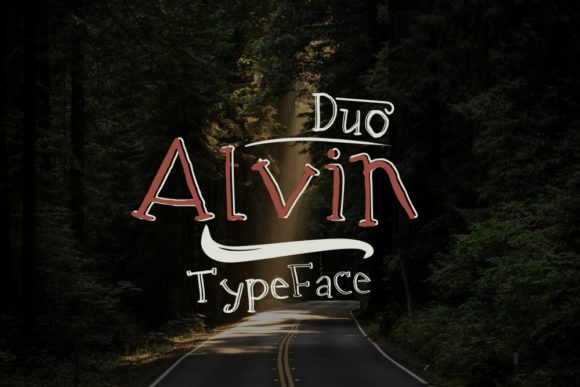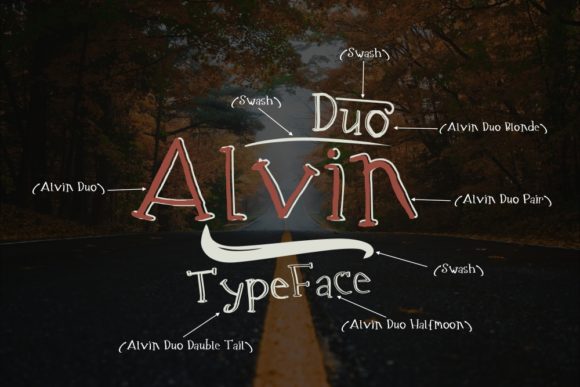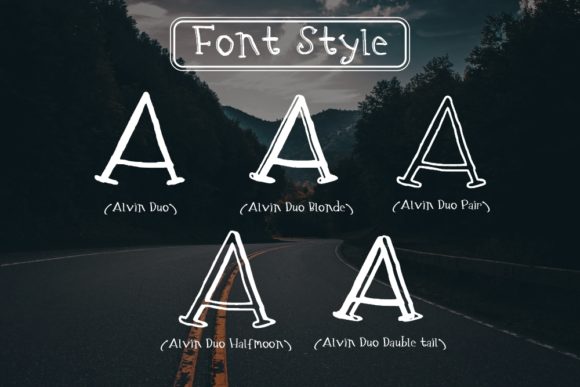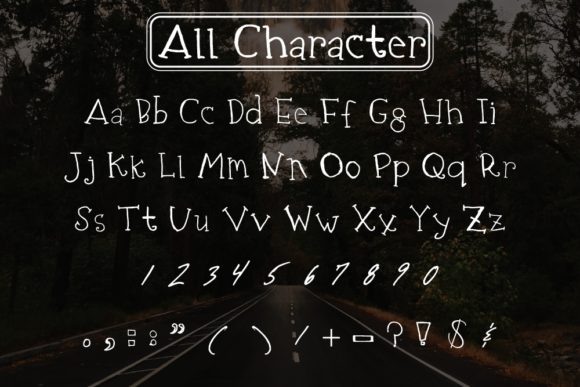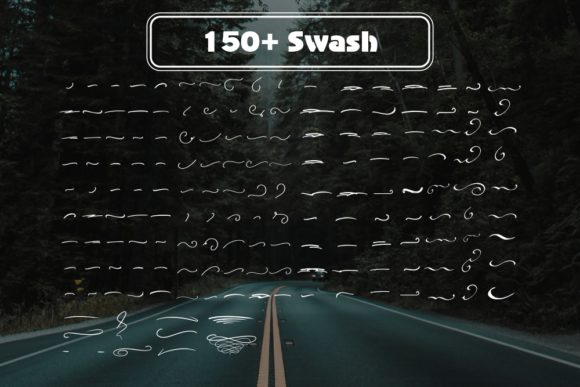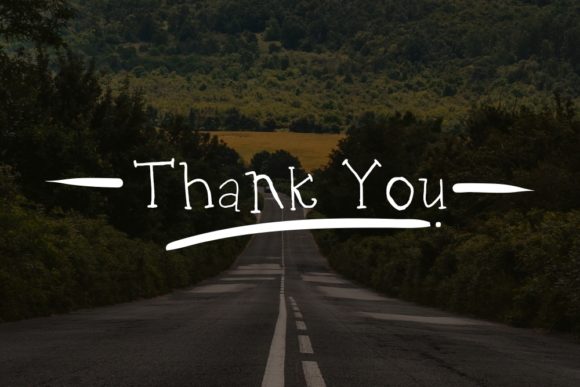
Introducing Alvin Duo Font: The Ultimate Display Font for Creative Minds
Are you a designer, crafter, or DIY enthusiast looking for a font that can add a touch of personality to your projects? Look no further than Alvin Duo Font, a cute and quirky display font that’s perfect for a wide range of designs. With its natural and unique style, Alvin Duo is incredibly versatile and can be used in various creative projects, from crafting and scrapbooking to branding and advertising.
The Unique Charm of Alvin Duo Font
Alvin Duo Font boasts a distinctive and eye-catching style that’s sure to capture attention. Its natural and organic feel makes it perfect for designs that require a personal touch. The font’s quirky and playful vibe is ideal for projects that need to stand out from the crowd, such as:
- Crafting and scrapbooking projects
- Branding and advertising materials
- Packaging and labeling designs
- Party decorations and invitations
What Makes Alvin Duo Font So Versatile?
The versatility of Alvin Duo Font lies in its unique design, which can be easily paired with various styles and themes. Whether you’re creating a modern and sleek design or a vintage-inspired project, Alvin Duo Font can adapt to your needs. Its natural and organic feel makes it perfect for:
- Rustic and outdoorsy designs
- Vintage and retro-style projects
- Whimsical and fantastical designs
- Modern and minimalist designs
How to Use Alvin Duo Font in Your Designs
Using Alvin Duo Font in your designs is easy and straightforward. Here are some tips to get you started:
- Pair Alvin Duo Font with complementary fonts to create visual interest.
- Experiment with different colors and textures to add depth and dimension to your design.
- Use Alvin Duo Font to create eye-catching headlines and titles.
- Add a personal touch to your designs with Alvin Duo Font’s quirky and playful vibe.
The Benefits of Using Alvin Duo Font
By using Alvin Duo Font in your designs, you can enjoy several benefits, including:
- Unique and eye-catching designs that stand out from the crowd.
- Increased creativity and flexibility in your design projects.
- Easier pairing with other fonts and design elements.
- A personal and distinctive touch that sets your designs apart.
| Font Name | Alvin Duo Font |
| Author | Gblack Id |